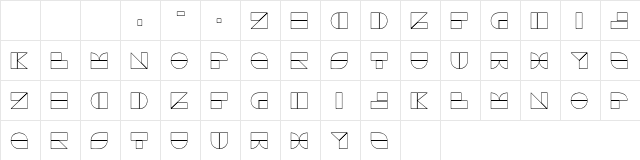
Complete Drebiek Expanded Outline glyph index. Displaying only characters natively supported by Drebiek Expanded Outline font.
Drebiek is built around its visual character rather than neutral utility - its distinctive forms are designed to make an impression at display sizes.
Font Pairing: Pair with a clean neutral sans-serif for body copy to let Drebiek's character lead without overwhelming the composition.
Pro Tip: Use Drebiek exclusively at display sizes - it was designed to be seen, not read at length. Let a neutral companion handle body copy.